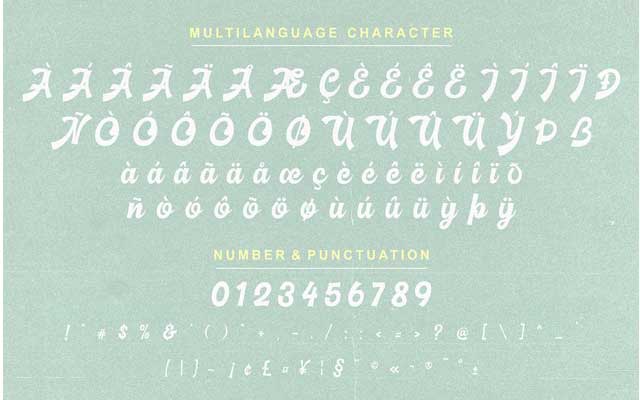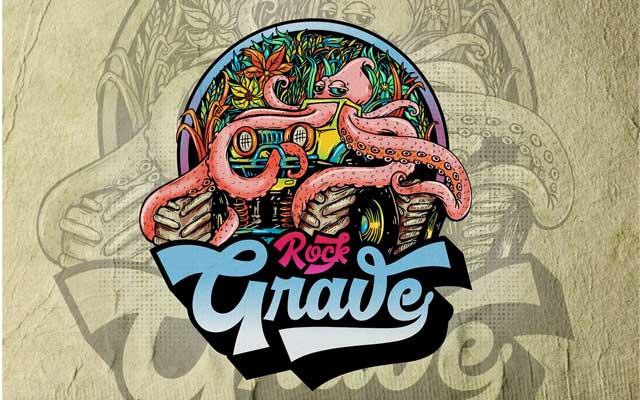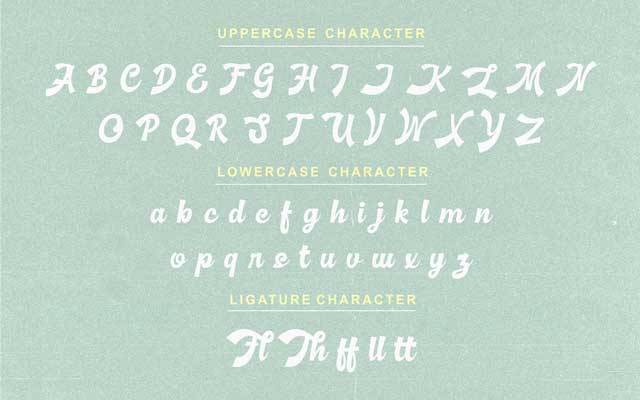
CM – Basuki Script Font | PSDLY
Basuki Script Font
About Basuki Font
Basuki Font Is a content text style accompanies a retro, present-day and vintage contact in it. Roused by dynamic culture, sign and identifications plan. Basuki Script accompanies capitalized, lowercase, expel impact, numerals, accentuations thus numerous minor departure from every character incorporates OpenType substitutes. This textual style is incredible for your inventive venture, for example, logos, publications. solicitations cards, bundling, identifications, logotype, attire structure, and Label. Yet, don’t give we a chance to limit your creative mind obviously. Function admirably on both vintage and current plan. You can see our structure usage to see pictures to check the outcome test. Basuki Script looks Perfect for use in anything from Branding, Web, Packaging, Etc. Download More Premium Font Free.
PUA Encoded ( 100% Accessible ) Standard Character ( Uppercase, Lowercase, Numeric, Currency, Punctuation ) Multilingual Support Alternates Character Ligature.